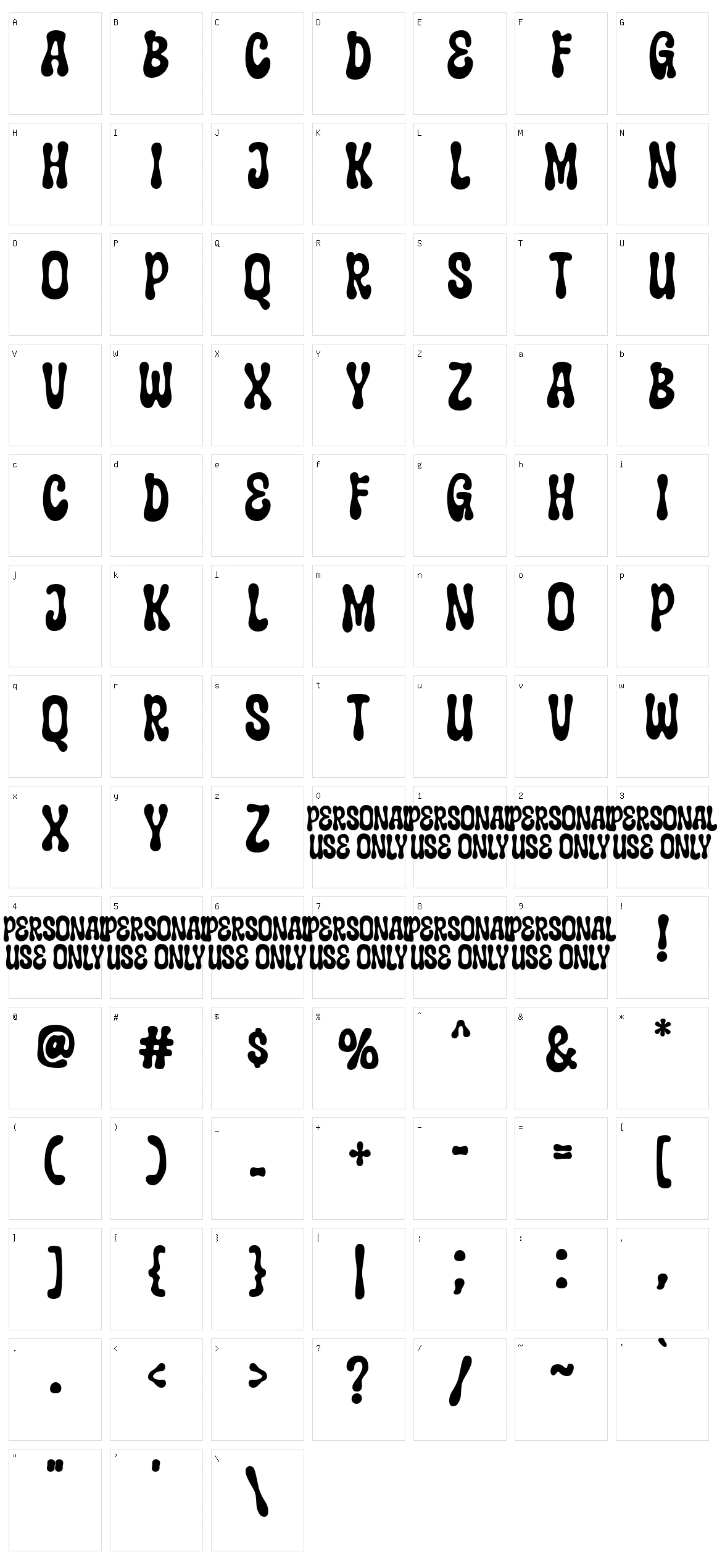
Super Bread is a fun and playful font with a groovy, retro vibe. Its rounded letters and bubbly curves give it a sense of whimsy and lightheartedness, while its thick and thin strokes add a touch of excitement and energy. This makes it a great choice for a variety of projects, such as childrenâs books, comics, advertising, posters, menus, and packaging.